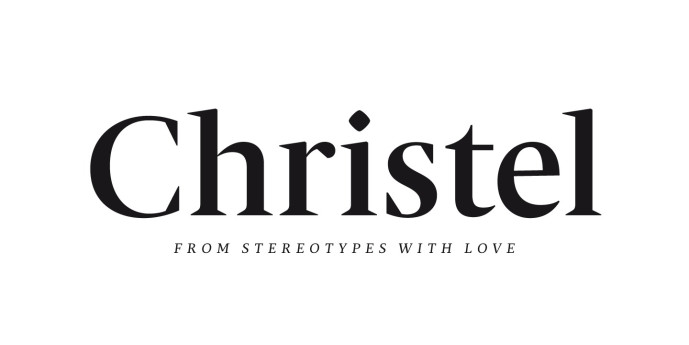
Christel Font Family
Designer: Stereotypes
Christel Font Family is a versatile serif font family crafted by designer Sascha Timplan and published by Stereotypes. It offers 36 distinct styles — ranging from delicate light weights to bold, strong serifs — making it a comprehensive solution for a wide range of typographic needs.
What sets Christel apart is its rich OpenType feature set: stylistic and contextual alternates, discretionary and standard ligatures, fraction support, multiple numeral styles, and broad multilingual coverage — features that give designers flexibility and control for both print and digital design.
Christel shines in editorial design, branding, book layout, magazine work, e-books, web and screen layouts — anywhere you need a serif font that balances elegance with readability, from small body text to strong, expressive headlines.
In short: Christel is a sophisticated, reliable serif font family — elegant yet functional, powerful yet flexible — that adapts beautifully to a wide variety of design projects, giving your work both character and professionalism.